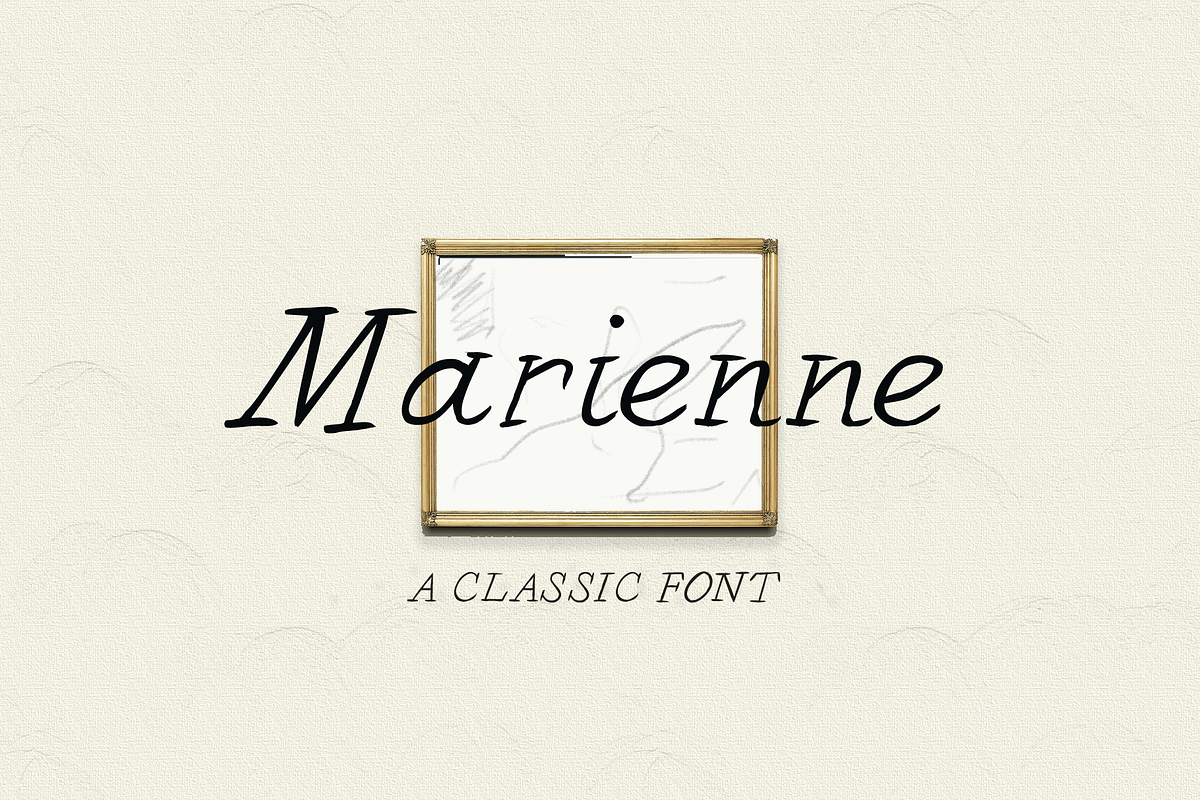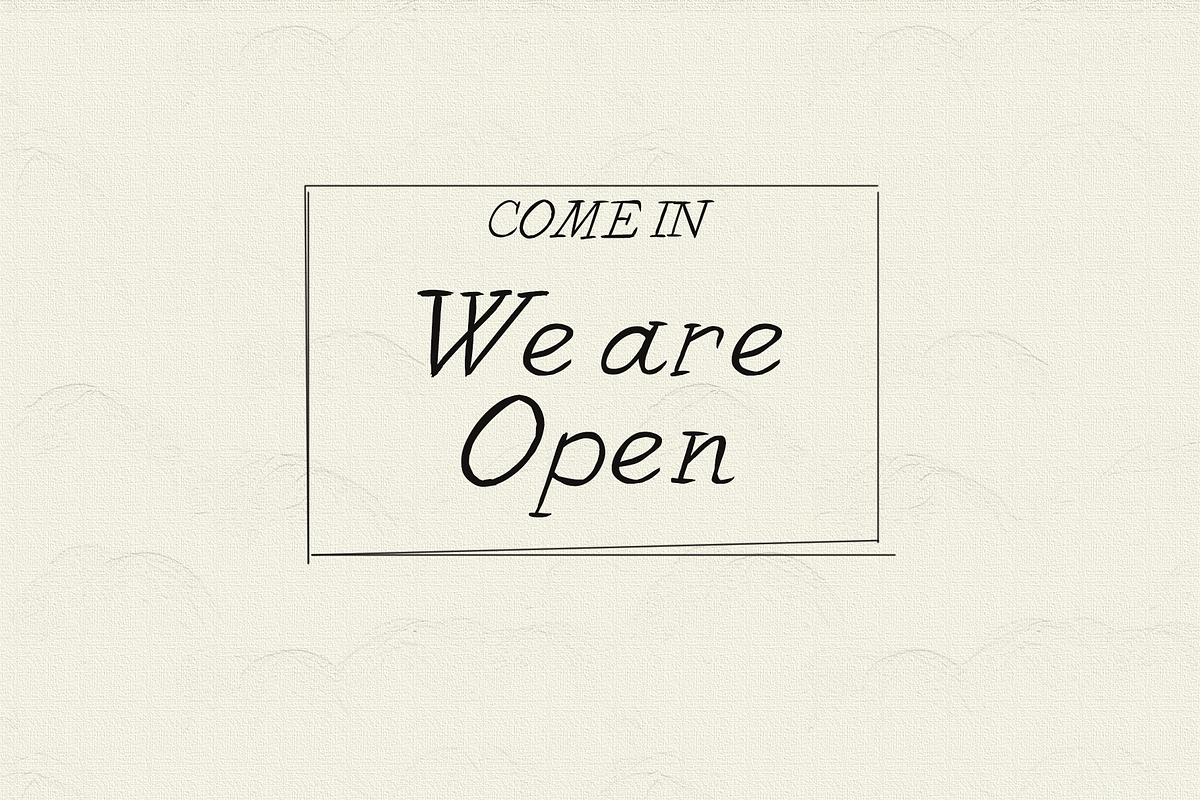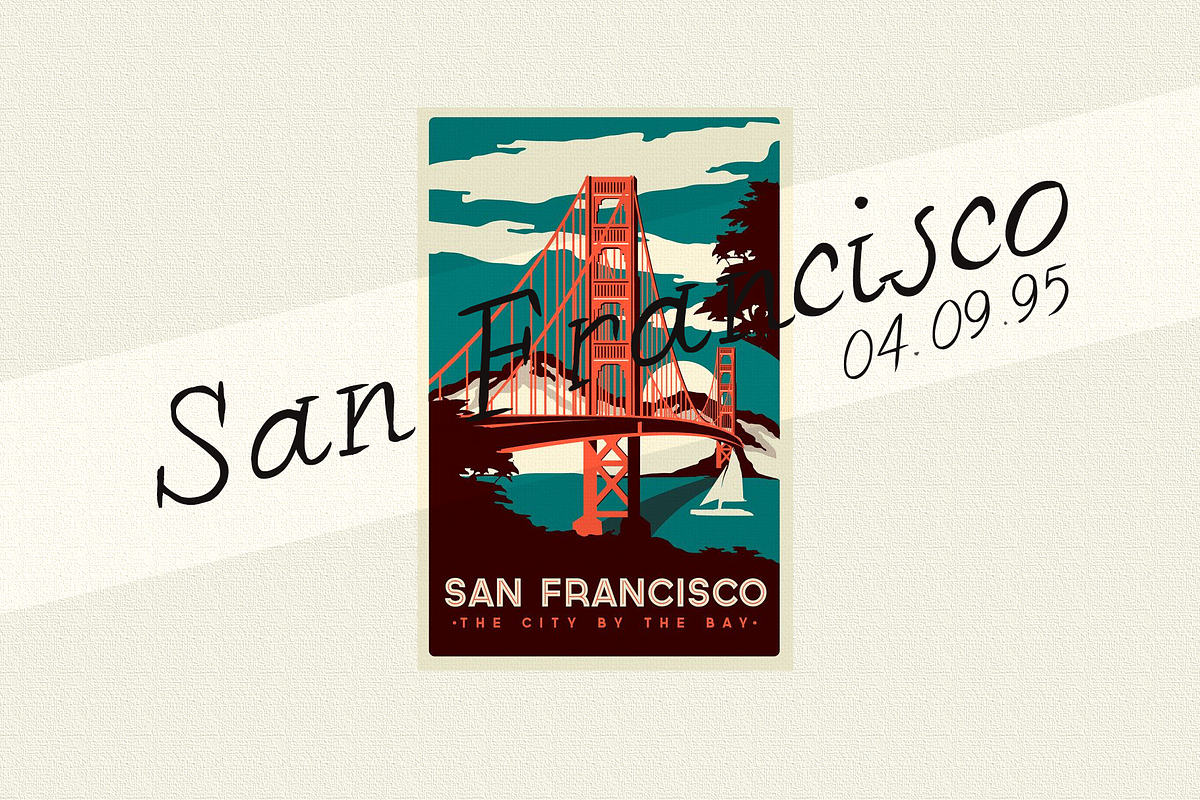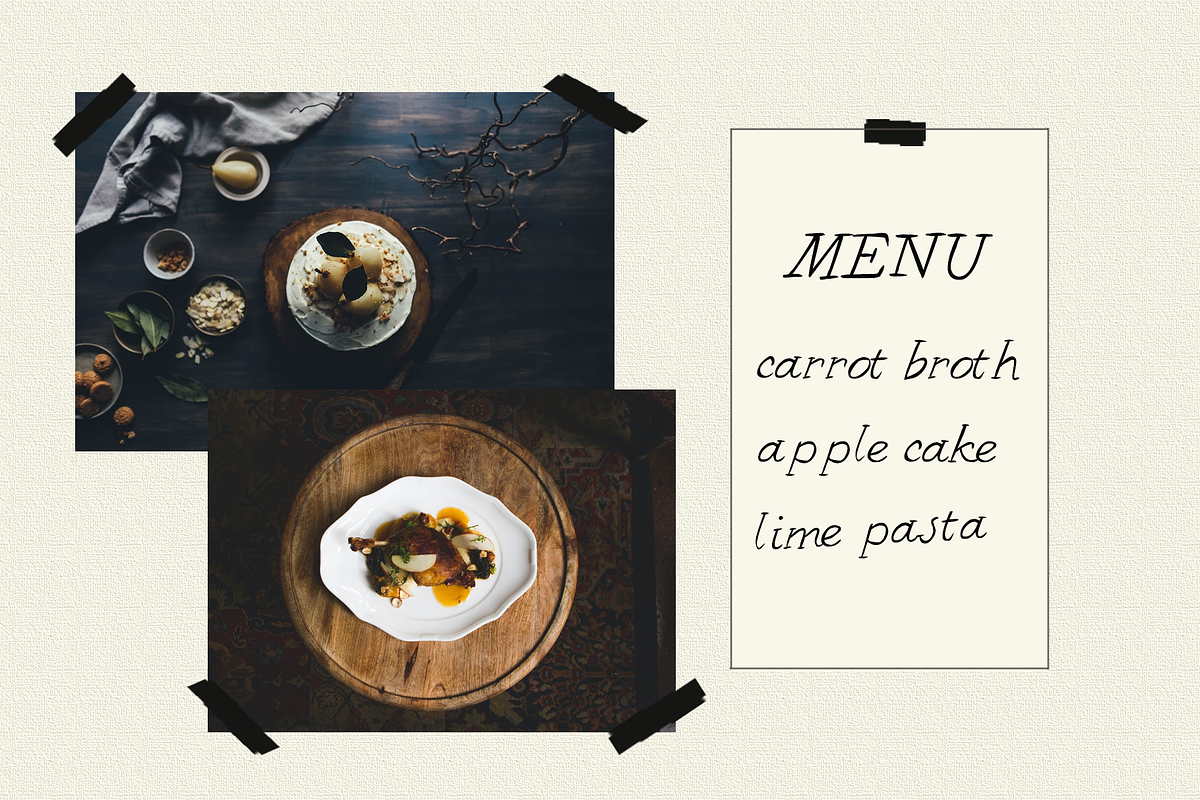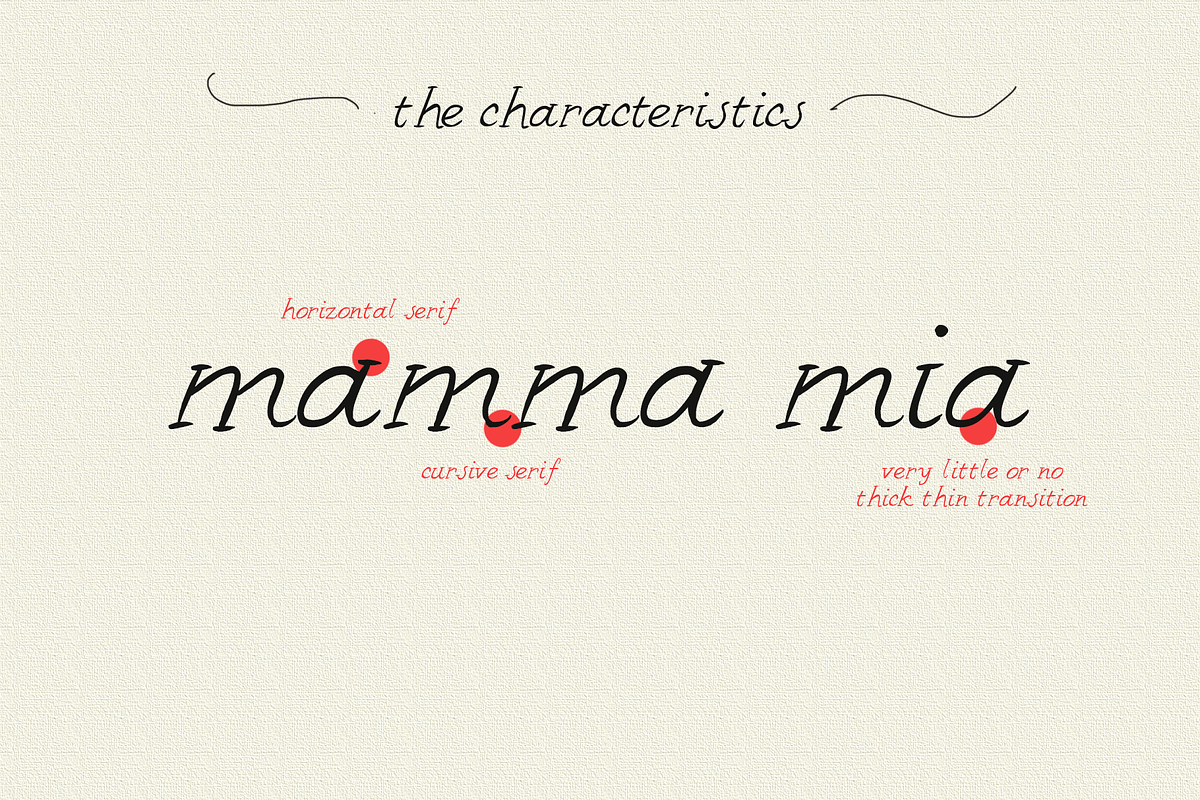
Marienne Font
Marienne has a Parisién character. It is chic and elegant but also has natural curves and a hand-drawn feel. It feels familiar and warm as well as cool and inspiring.